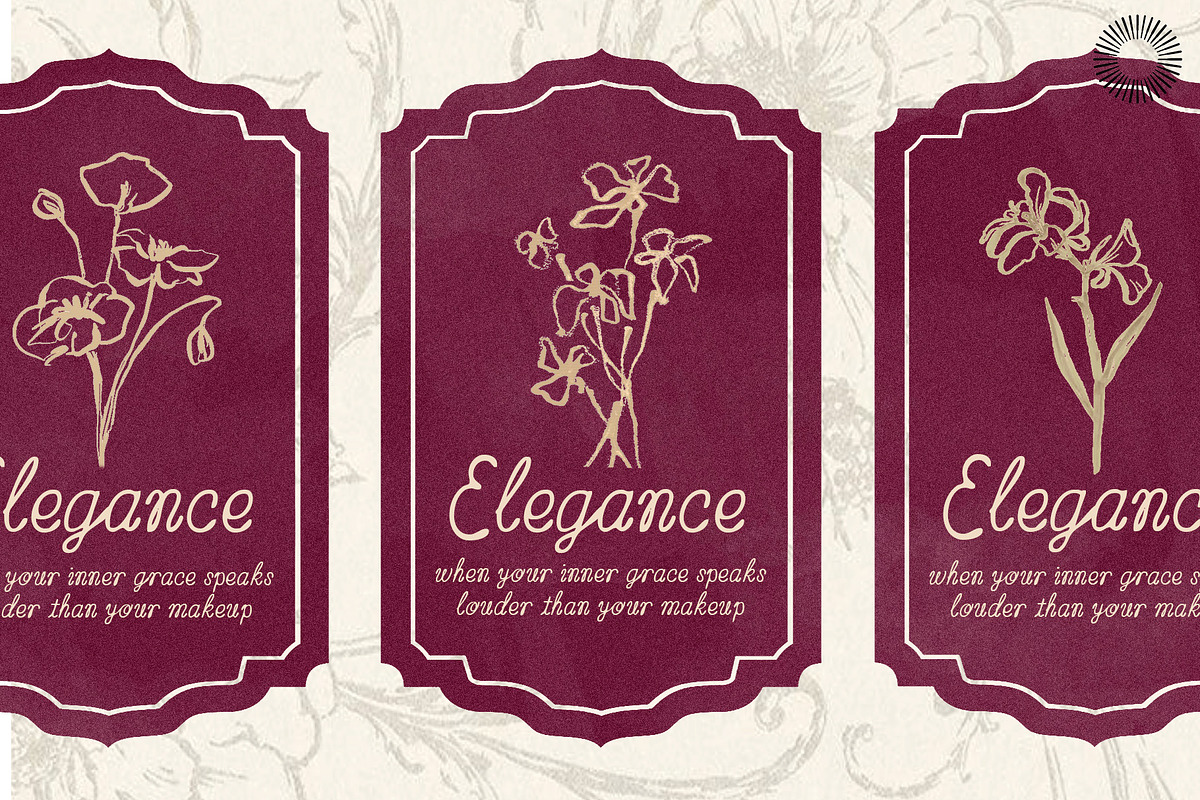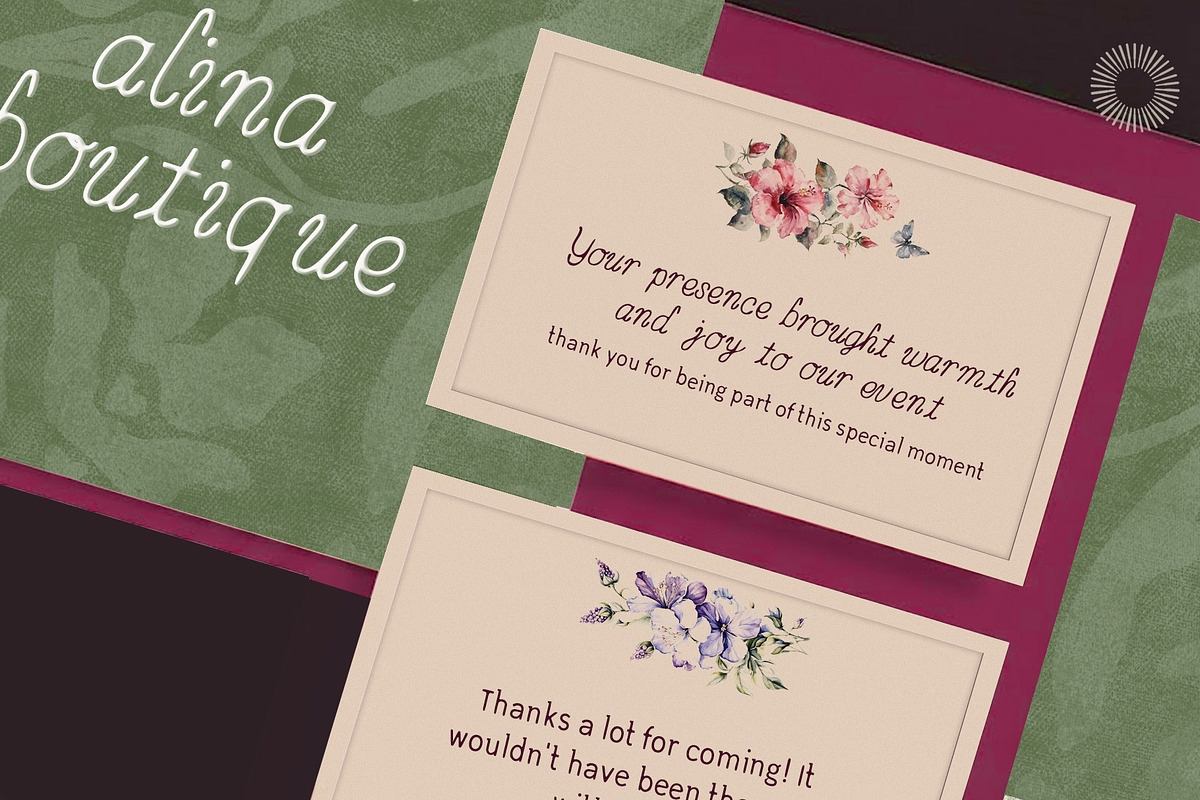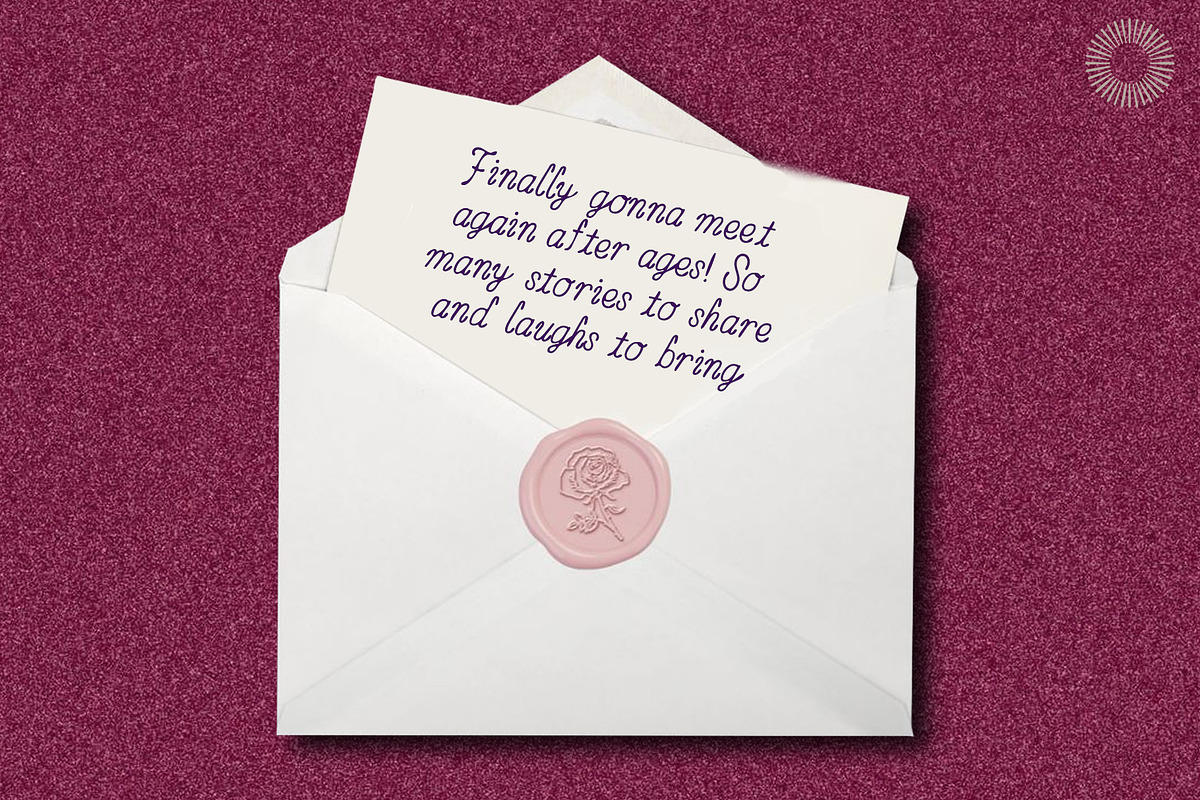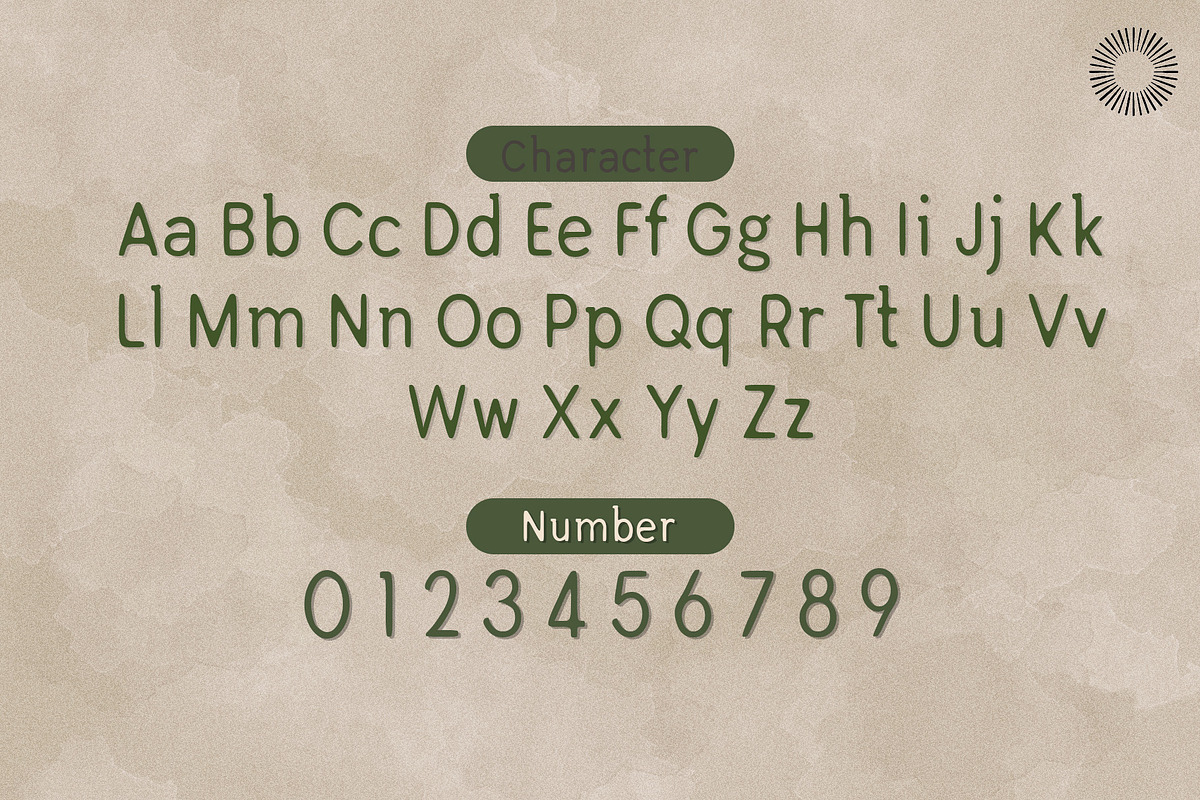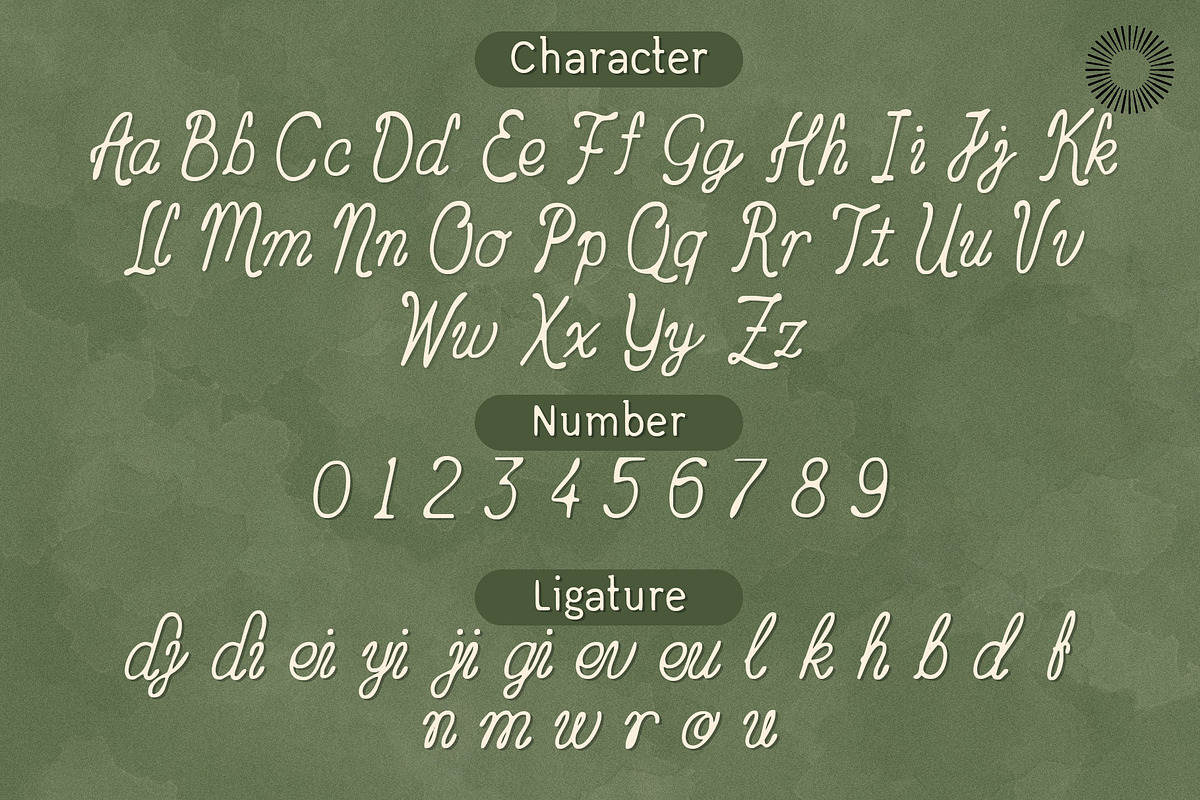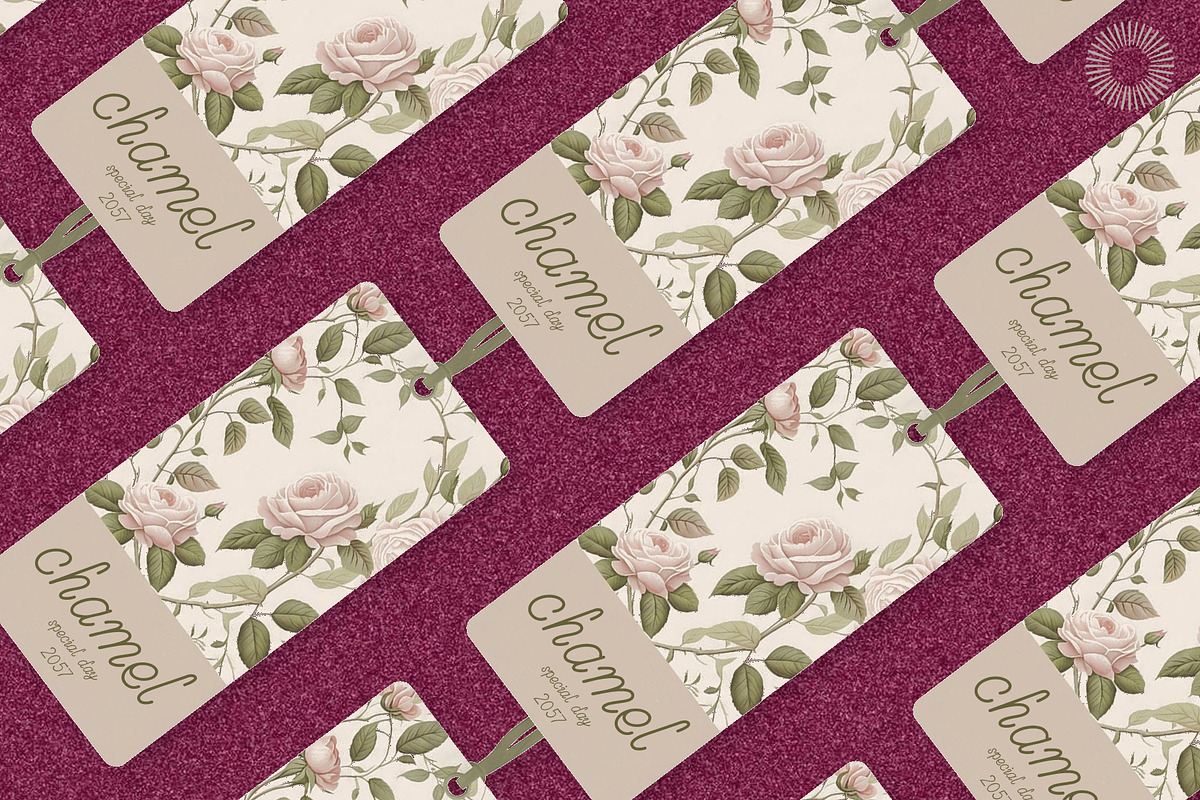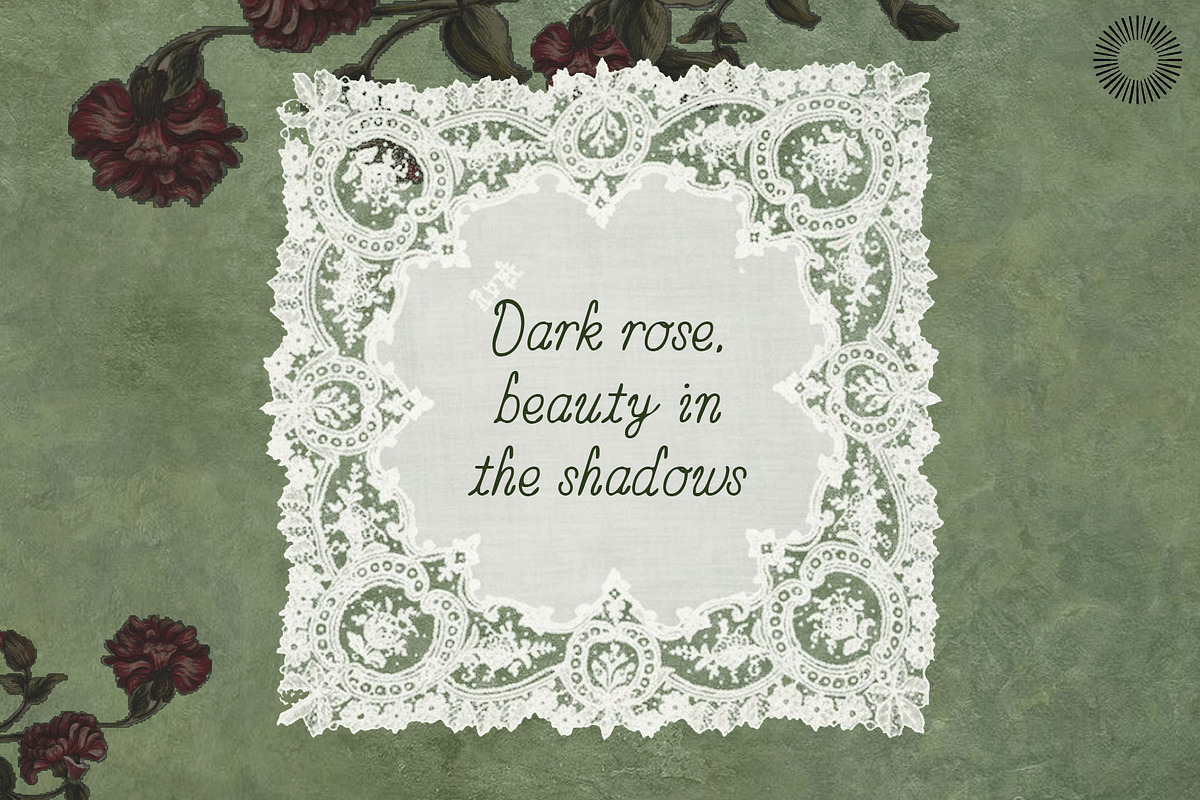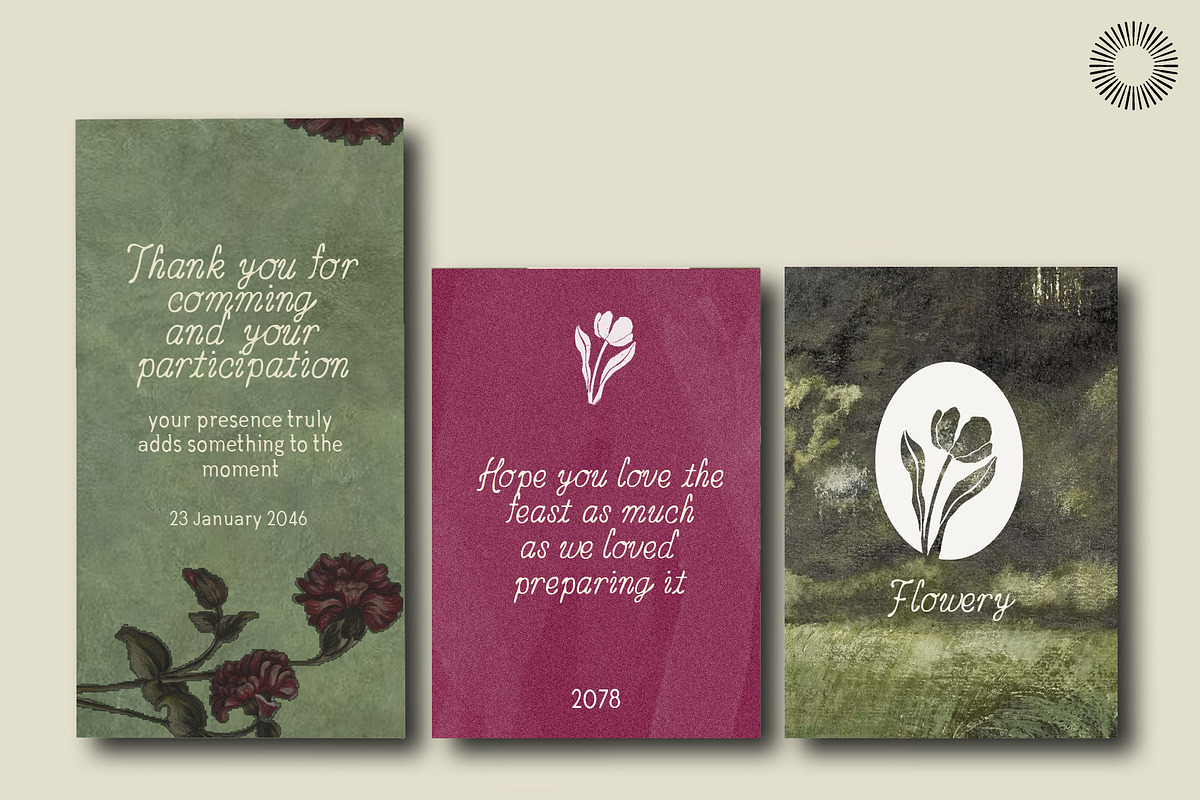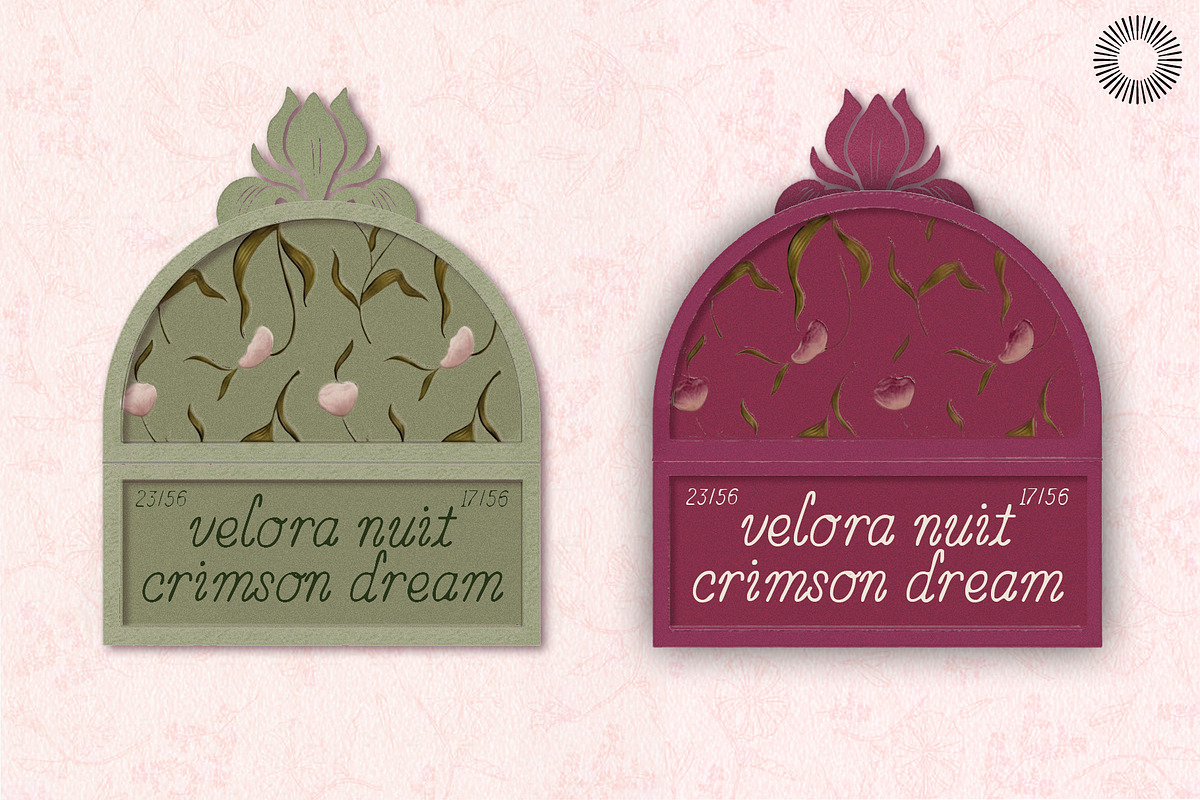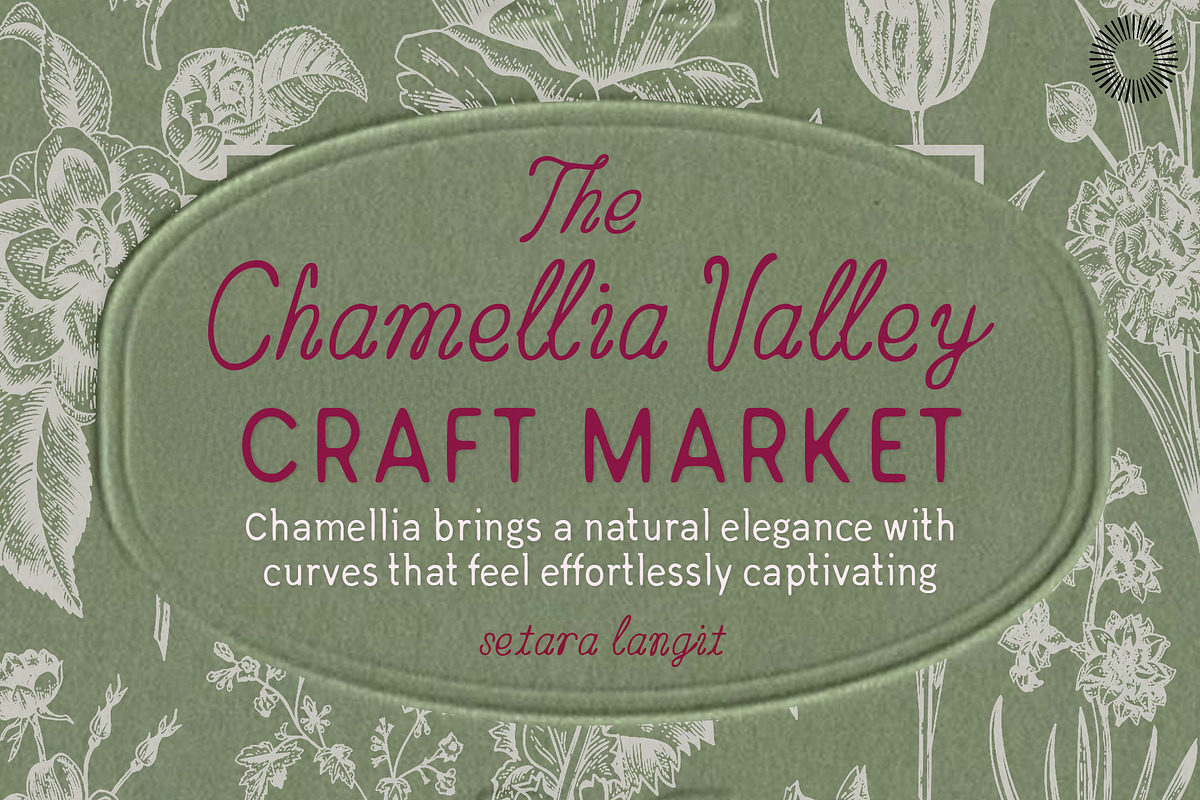
Chamellia Valley - Handmade Script
Chamellia Valley is a handcrafted script that leans into soft curves and a naturally flowing structure. It doesn’t try to be overly polished—its charm comes from the small imperfections that make it feel warm, personal, and human. The strokes follow an organic rhythm, giving the letters a sense of ease rather than strict formality. It works well for projects that aim for a quiet elegance: craft markets, artisanal product labels, personal branding, botanical packaging, event stationery, and anything that benefits from a gentle, handwritten presence. Chamellia Valley also pairs nicely with clean sans-serifs or simple serifs, creating a balanced mix between handmade warmth and modern clarity.